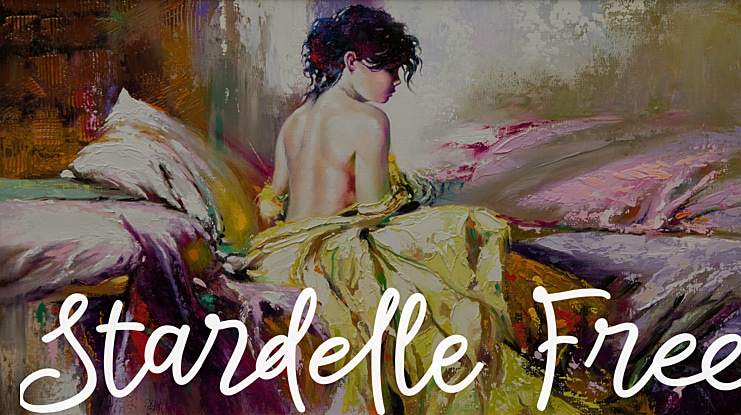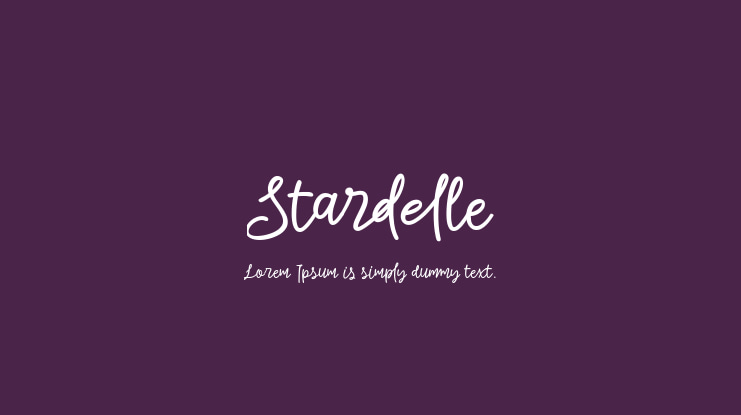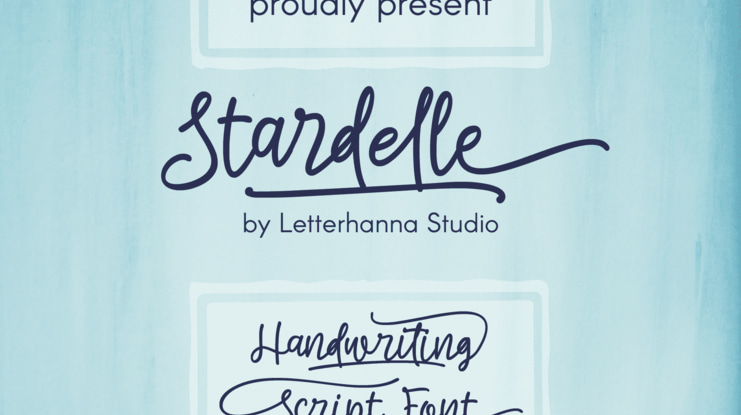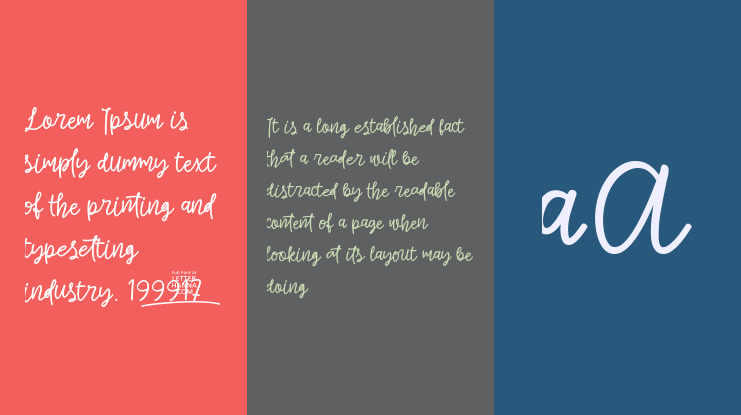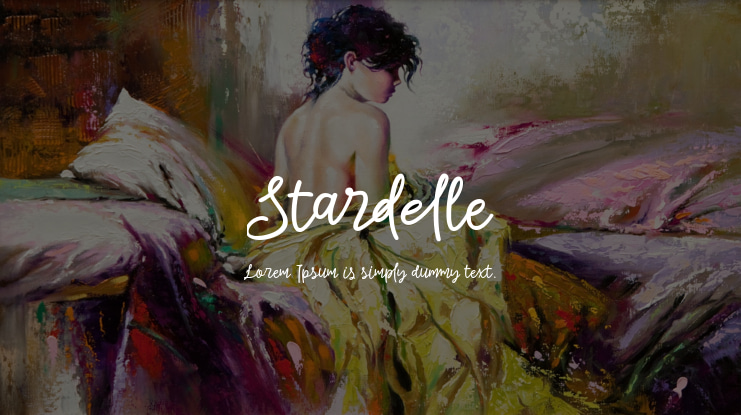
"Introducing 'Stardelle,' a bold and beautifully handcrafted font that adds a touch of elegance to your designs. With its flowing lines and abundant swashes, 'Stardelle' exudes charm and sophistication. This handwritten font is perfect for adding a personal and artistic flair to invitations, posters, branding, and more. Let 'Stardelle' illuminate your creativity and bring a touch of magic to your projects."